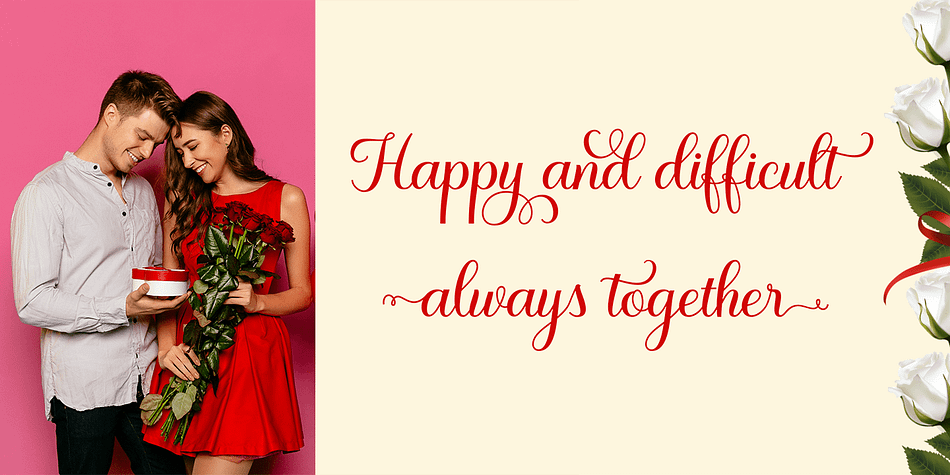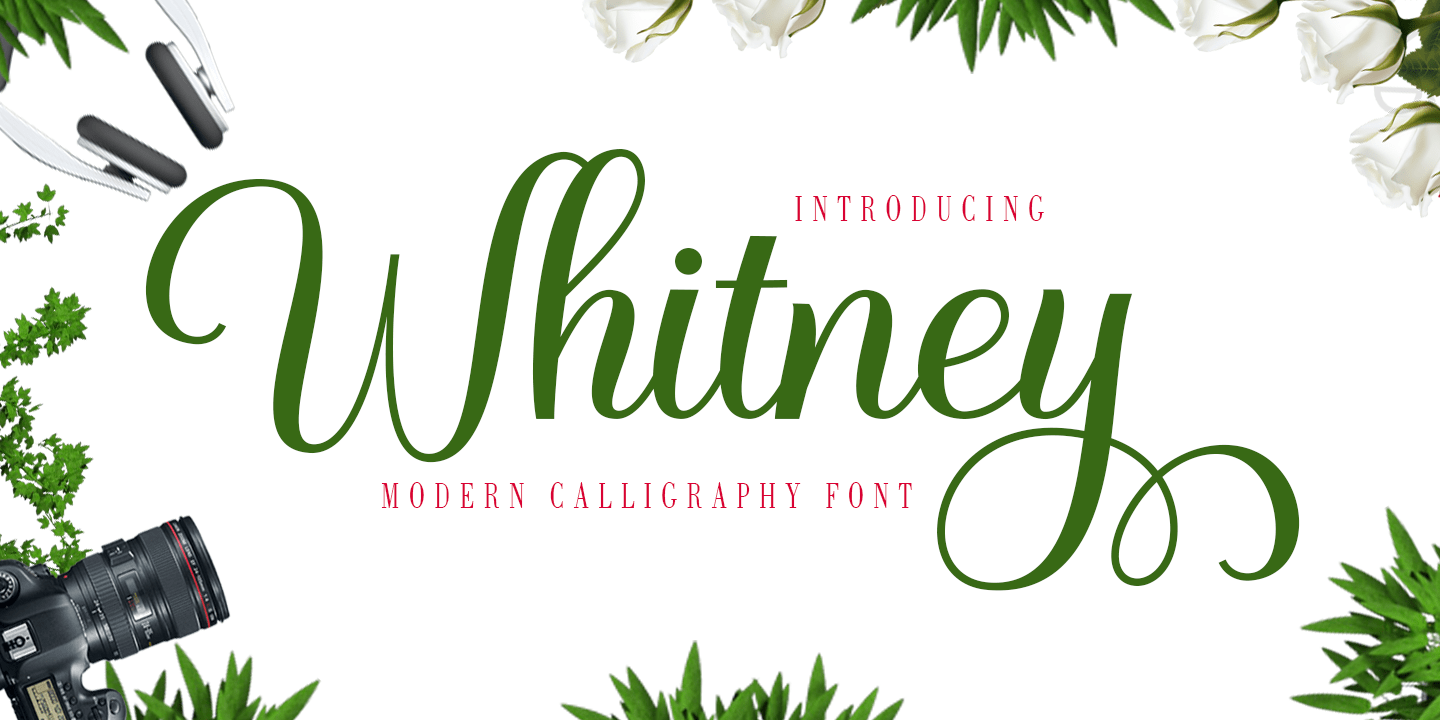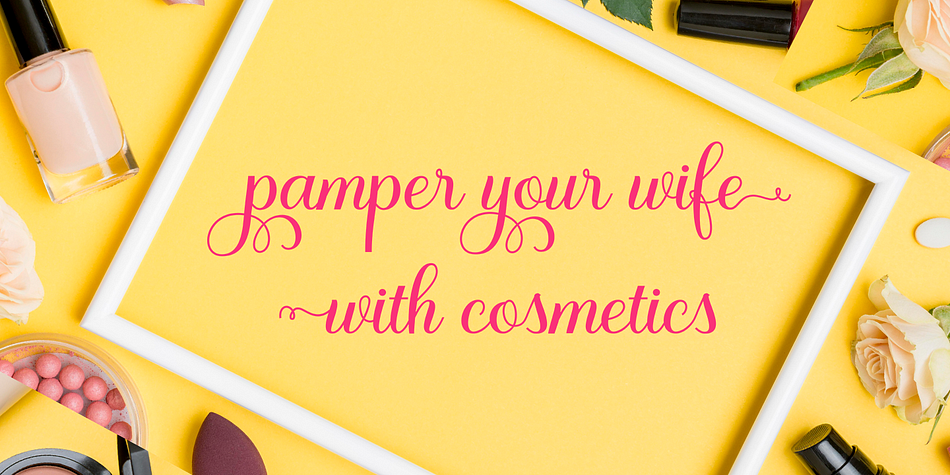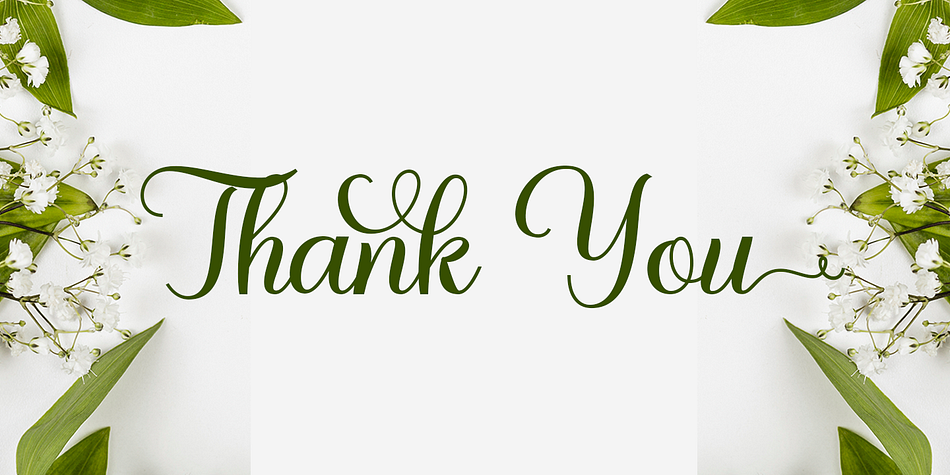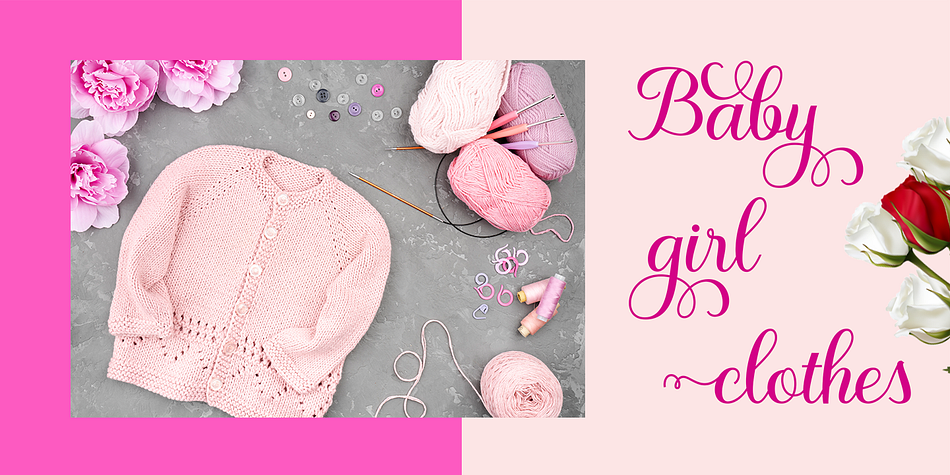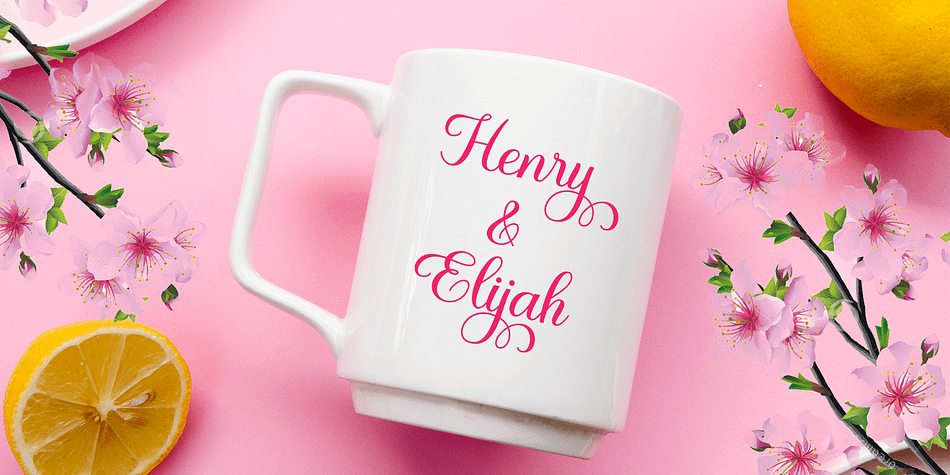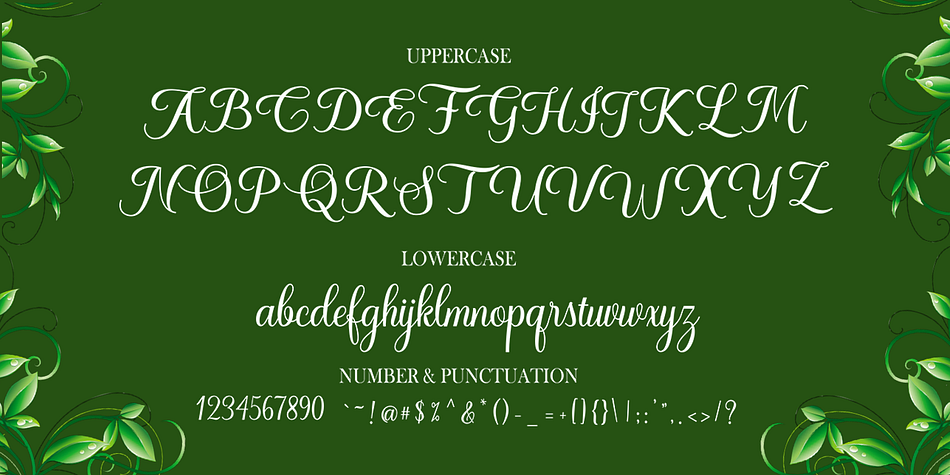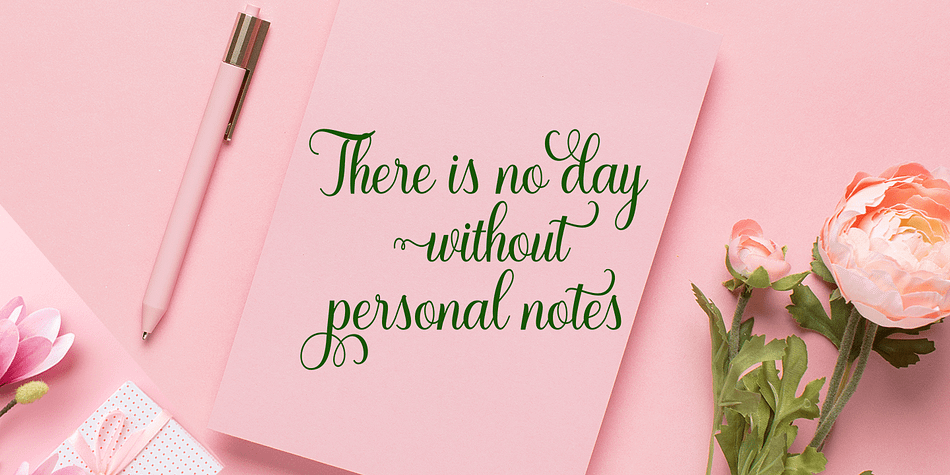
Whitney
Whitney is a modern calligraphy font family published by Gatype.
Whitney is a modern script with handwriting, decorative characters, designed to perfectly combine informal, sassy, romantic, sweet scripts. Hand-drawn design elements allow you to create many beautiful typographic designs in an instant like branding, logos, web design and editorial, prints, invitations, crafts, quotes, and more.